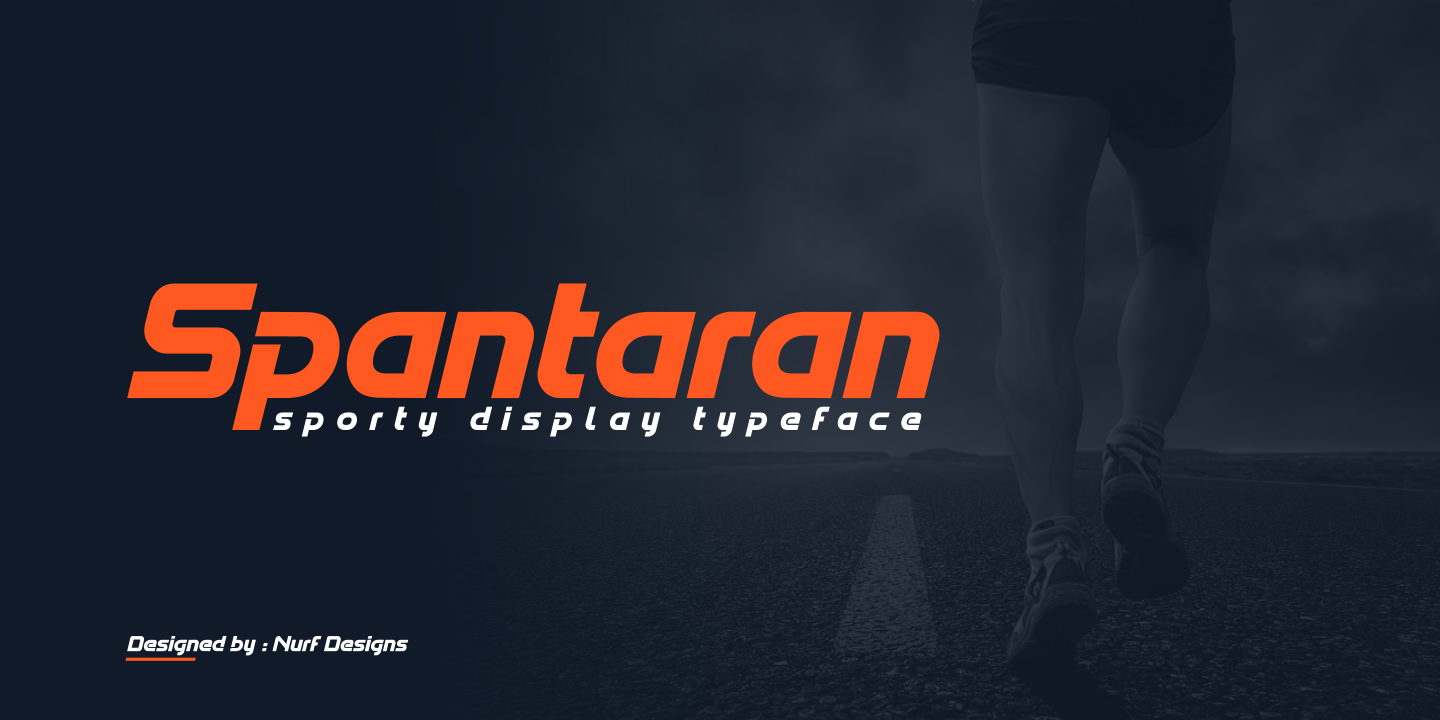
Spantaran Font Free Download – A futuristic, geometric typeface inspired by interstellar travel and sci-fi aesthetics. Commercial use requires licensing, but you can download the free version to launch your designs into the digital cosmos.
Where Can You Use Spantaran Font?
This cutting-edge font excels in:
• Sci-fi movie/game titles (space operas, cyberpunk interfaces)
• Tech startup branding (AI, VR, and futuristic innovations)
• Astronomy/science content (research presentations, infographics)
• Neon-lit urban designs (futuristic nightlife, digital art)
Why Is Spantaran Font Exciting?
Spantaran delivers otherworldly typography with:
Precision-engineered letterforms mimicking spacecraft design
Built-in glow effects for holographic appearances
Alternate cosmic characters for alien language effects
Perfect balance between futuristic and functional
Spantaran Font Family
The complete galactic collection includes:
• Spantaran Regular (base starship style)
• Spantaran Bold (warp-speed emphasis)
• Spantaran Italic (dynamic slanted variant)
• Spantaran Stencil (engineering blueprint version)